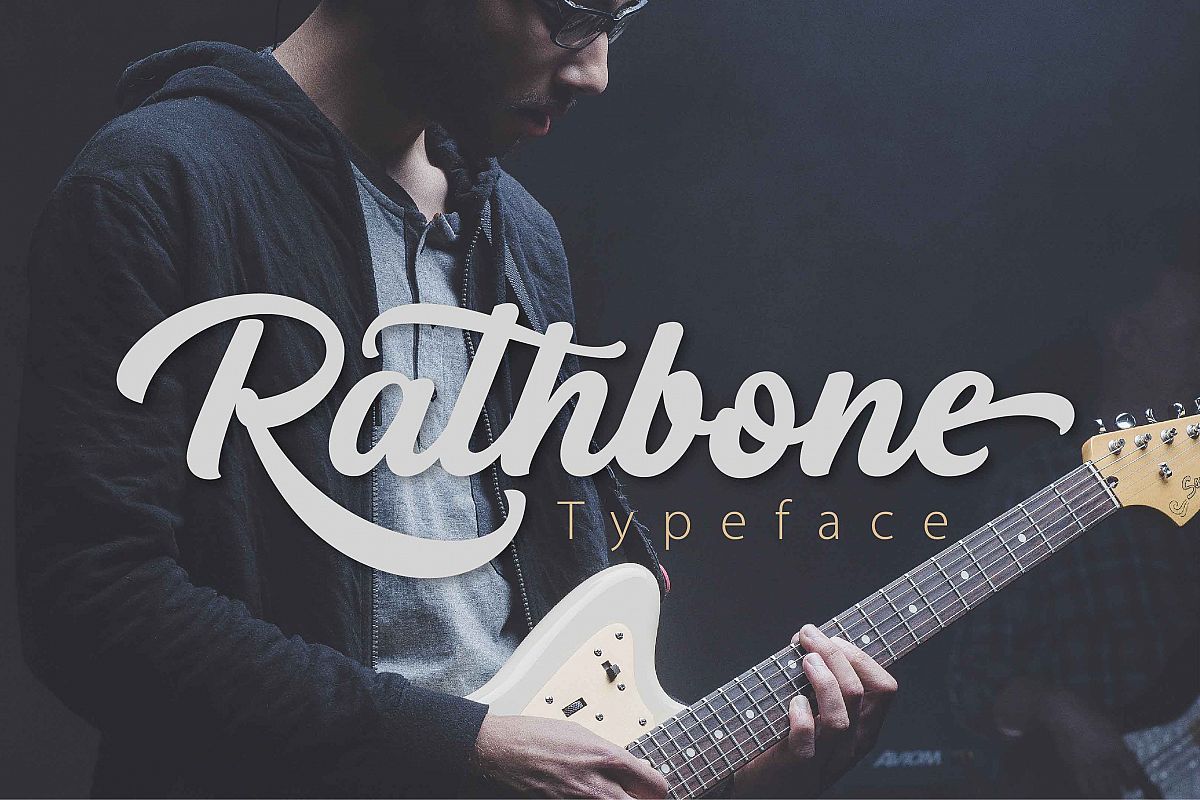
RATHBONE -Script
Rathbone
Proudly presents our latest product RATHBONE script.
I hope you are interested in this font,The fonts are great for product
logo,wedding card logo, Banner, Graphic design, clothing brand logo, and
much more.
RATHBONE script Font equipped with :
• Uppercase,
• lowercase
• Swash Uppercase
• numeral
• punctuation
• International Glyphs
• Stylishtic Alternates